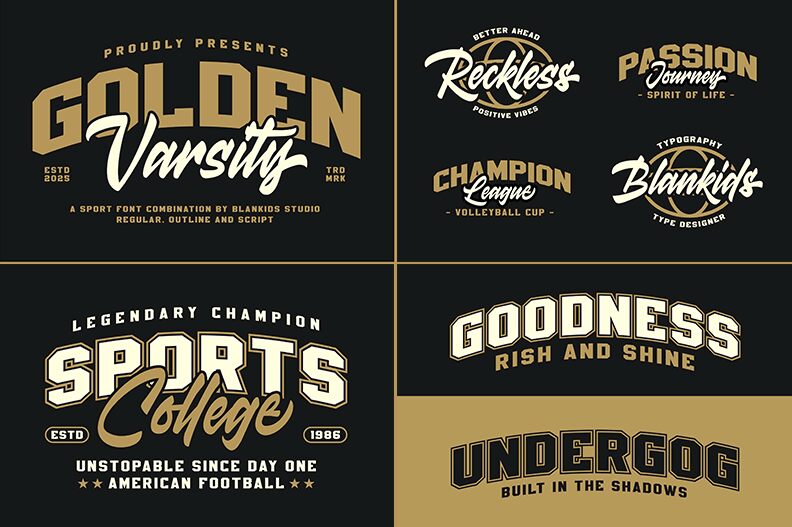
Golden Varsity Script
Golden Varsity Script font by Blankids is a free bold retro brush script font. Built with fast, angled strokes and inky pressure shifts, it captures that classic dugout swagger—slick, connected letters with sharp, flicked terminals and a steady, confident rhythm. The forms stay compact and legible even at a run, giving headlines the punch of vintage jersey lettering without losing polish.
Using Golden Varsity Script, your work shines on team logos, jerseys, sports posters, school spirit gear, barbershop signage, car club decals, and throwback packaging. This free font loves big sizes and tight tracking for maximum energy; pair it with a condensed sans or varsity block for stats, dates, and secondary lines.